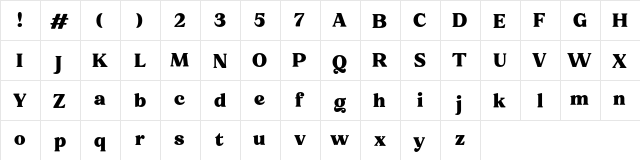
Free - Notulen Serif Display XBd Regular
Design Context for Free - Notulen Serif Display XBd Typeface
Free - Notulen Serif Display XBd brings ornamental detail and strong personality to headlines and identities, where visual impact matters more than quiet functionality. The heavy weight commands attention and anchors typographic hierarchies.
Font Pairing: Pair with a clean neutral sans-serif for body copy to let Free - Notulen Serif Display XBd's character lead without overwhelming the composition.
Pro Tip: Use Free - Notulen Serif Display XBd exclusively at display sizes — it was designed to be seen, not read at length. Let a neutral companion handle body copy.